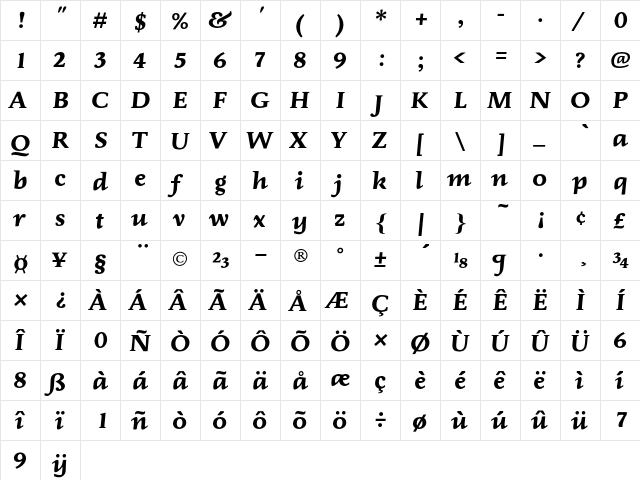
Economist101 BoldItalic Font Preview
Economist101 BoldItalic
Design Context for Economist101 Typeface
Economist101 offers clean, dependable letterforms without strong stylistic allegiance, making it a practical choice for designers who need flexibility. The dynamic lean of this cut emphasises speed and emphasis in any layout. The heavy weight commands attention and anchors typographic hierarchies.